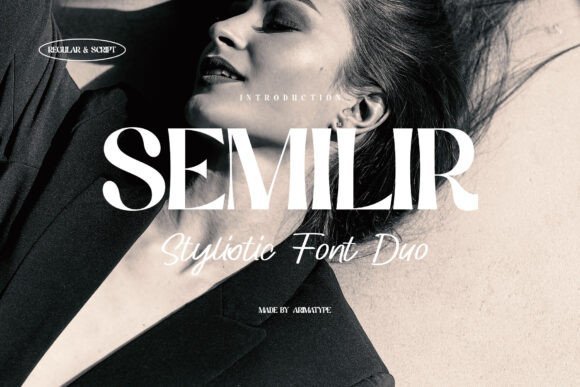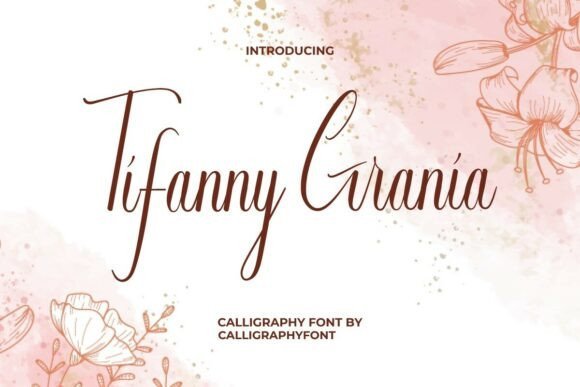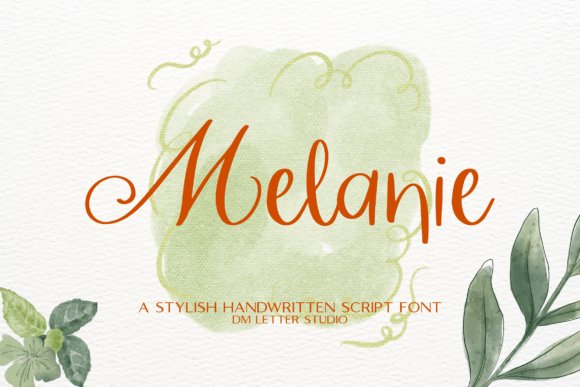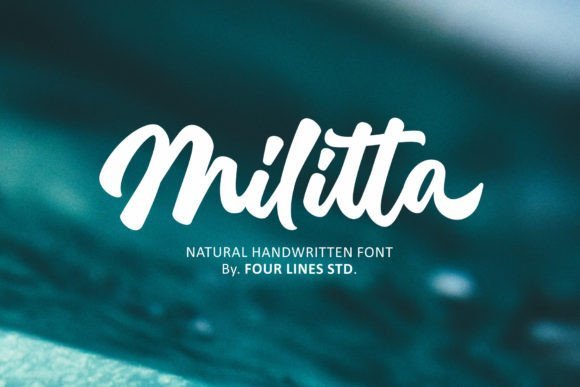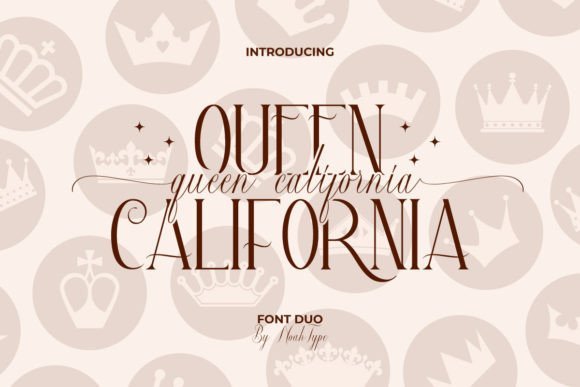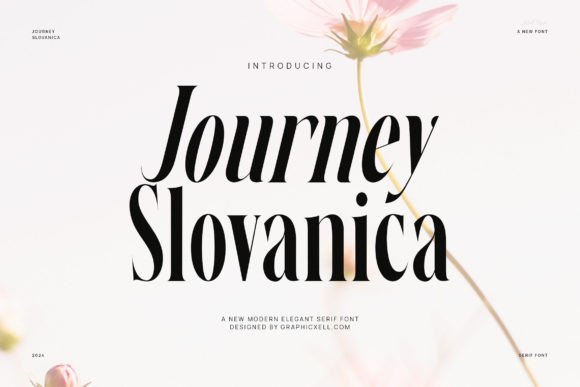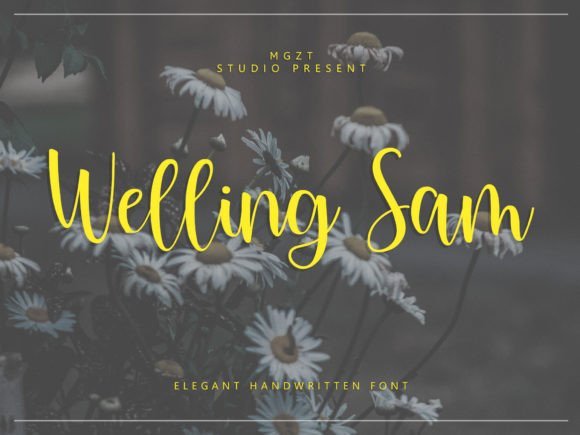
61 Stunning Fonts for Wedding Invitations RSVP Card Templates 2026
Picking fonts for wedding invitations can define the mood before guests even open the envelope. This list of 61 typefaces covers script, serif, sans-serif, and hand-lettered options so you can find styles that suit formal, casual, or modern celebrations.
Each entry includes pairing suggestions, recommended sizes, and print-friendly notes for items like save-the-dates, RSVP cards, and envelopes. Use the samples here to test legibility and paper choices before you commit to a full print run.
1. Tifanny Grania Font
Tifanny Grania Font
Tifanny Grania Font – Tifanny Grania is an exquisitely delicate calligraphy script that pairs dramatic thick downstrokes with whisper-thin upstrokes, giving words an organic, handcrafted motion. Its signature long swashes and decorative flourishes on both capitals and lowercase letters make single-word monograms and venue nameplates feel bespoke and refined. With an extensive set of ligatures and PUA-encoded alternates, the face makes designing luxe stationery straightforward for ornate invite suites and fonts for wedding invitations.The contrast in stroke weight and fluid connections between characters render beautifully under foil-stamping, letterpress, and deep embossing-qualities that read as premium on thick cotton stock. Designers gain fine control over rhythm by swapping alternates: extend a tail, shorten a loop, or tighten kerning for RSVP cards without losing a hand-lettered look. Use it sparingly for names and headlines and pair with a neutral serif or narrow sans for body copy to preserve legibility across suites.
My Recommendation: I reach for Tifanny Grania when a wedding suite needs unmistakable calligraphic flair; its long swashes give names a handcrafted presence that photos and print both love. The PUA glyph set speeds layout because alternates are easy to access in most design apps. It’s ideal for formal ceremonies, luxury brands, and projects destined for letterpress, foil, or heavy-stock stationery.
2. Melanique Font
Melanique Font
Melanique Font – Melanique is a soft, flowing script with polished strokes that mimic elegant handwriting, lending warmth to feminine and lifestyle compositions. Its clean joins and moderate contrast keep names and short titles readable even at display sizes, and the typeface installs cleanly into Canva, Photoshop, and Illustrator for fast mockups. The overall effect suits boutique logos, beauty packaging, social posts, and bridal headers where a personable, stylish voice is wanted.For layout, set Melanique as a focal script for names and quotes, increase letterspacing slightly for an airy presence, and pair it with a minimal sans for directions and event details. Because the font creates a strong mood on its own, keep backgrounds uncluttered and test printed contrast to avoid ink spread on textured papers. Its friendly curves make it a practical pick when deadlines demand a refined look without extensive typographic tinkering.
My Recommendation: I use Melanique when a project needs a graceful, readable script that works across screens and print; it’s especially helpful for quick branding and social collateral. Its compatibility with major design platforms accelerates client rounds and proofs. Choose this font for boutique stationery, product labels, and digital quotes that benefit from an approachable, handwritten tone.
3. Semilir Font
Semilir Font
Semilir Font – Semilir pairs a measured geometric serif with companion script alternates, so designers can create cohesive invitation suites without juggling multiple families. The serif provides steady, readable body text for itineraries and directions, while the script alternates add flourish for names, monograms, and section headers. A broad set of ligatures and stylistic alternates gives control over rhythm and texture across save-the-dates, menus, and signage.This hybrid approach streamlines multi-piece stationery: use the serif for RSVP blocks and venue details, and swap in script options for focal names to establish hierarchy through contrast. Semilir responds well to small caps, subtle weight shifts, and tight tracking, which suits printed techniques like debossing and engraving. It works across intimate wedding suites and boutique branding where consistent typographic language matters.
My Recommendation: I pick Semilir when a project needs unity across many printed elements because the serif and script live within the same system, reducing mismatched tones. That cohesion keeps body copy legible while letting names and headlines breathe with personality. It’s perfect for couples who want modern clarity with a touch of handcrafted flair across their full stationery set.
4. Queen California Font
Queen California Font
Queen California Font – Queen California pairs a refined serif display with a free‑flowing calligraphic script, creating a high‑contrast duo that feels both formal and personal. The serif anchors headlines while the script supplies fluid names and swashes, making it a natural choice when composing invitation text, envelope addressing, RSVP cards and decorative monograms; the family is also PUA encoded so every alternates and glyph is easy to access. The font’s swash system and coordinated kerning allow careful letter combinations without awkward collisions, and its mix of display and handwritten styles helps craft clear visual hierarchy across suite pieces. If you want type that reads as luxury but still carries the warmth of hand lettering, this pairing handles headings, small print and ornamentation with equal poise, so it’s especially effective when assembling cohesive wedding collateral using fonts for wedding invitations.
My Recommendation: I’d reach for Queen California when a couple wants a blend of classic polish and handwritten warmth. The ready-made swashes and PUA encoding save time when building coordinated suites, and the contrast between serif and script reads well in print treatments like foil or raised ink. Use it for formal invitations that also need intimate, calligraphic details – think ceremony invites, reply cards and envelope names.
5. Alberth Family Font
Alberth Family Font
Alberth Family Font – Alberth Family is a multi‑weight serif set that balances grace with clear structure: four weights give you options for strong headlines, comfortable reading in body copy, and subtle variations for captions or date lines. Its letterforms carry refined terminals and measured contrast, so it adapts well to both print and on‑screen use without losing personality. Because the family covers a useful tonal range, it’s simple to create typographic hierarchy across invitations, programs, menus and business cards while keeping a consistent voice. I especially like Alberth for projects that need a classy presence without resorting to ornate scripts – it prints cleanly for blind embossing and performs well in tight layouts or small metal‑stamped tags.
My Recommendation: I would pick Grimersa when a project needs an upscale voice that reads as reliable and polished. It excels on black-tie invitations, magazine mastheads, and premium labels where typographic authority matters. Use it when you want type that carries weight yet remains adaptable across print and digital formats.
45. Floral Wedding Couple Monogram Font
Floral Wedding Couple Monogram Font